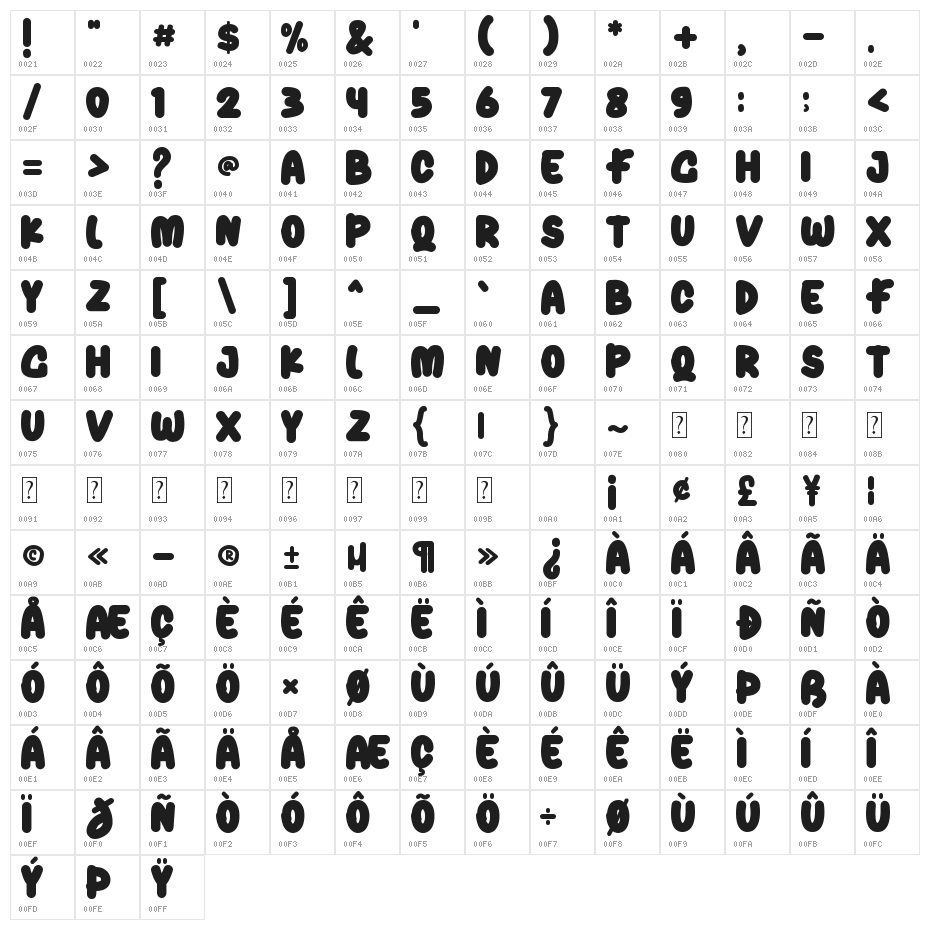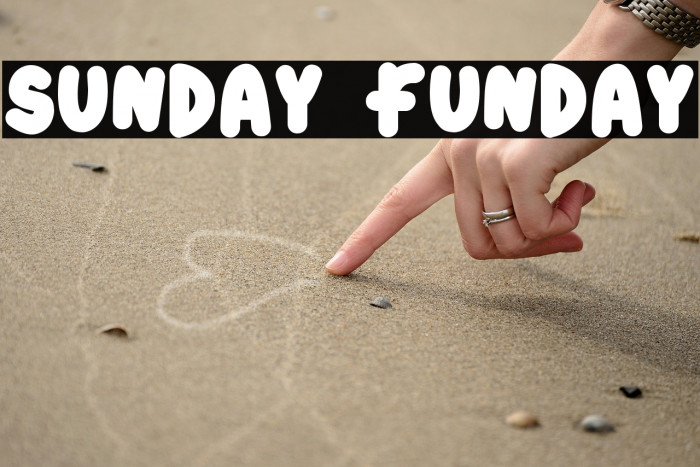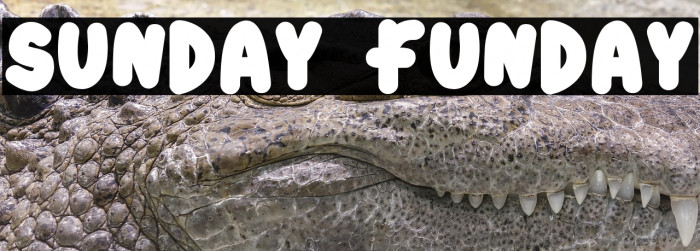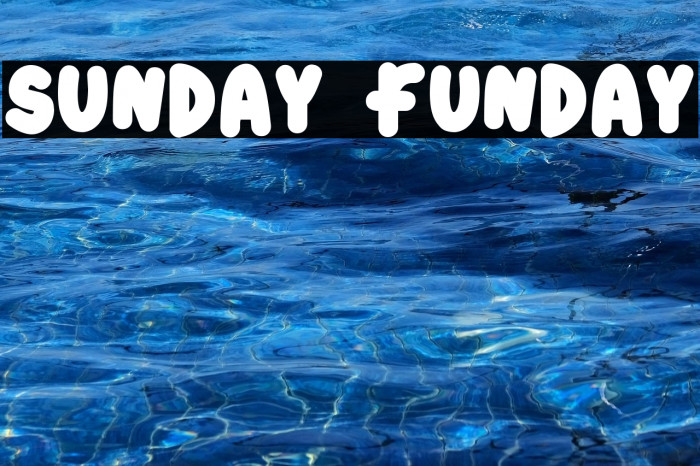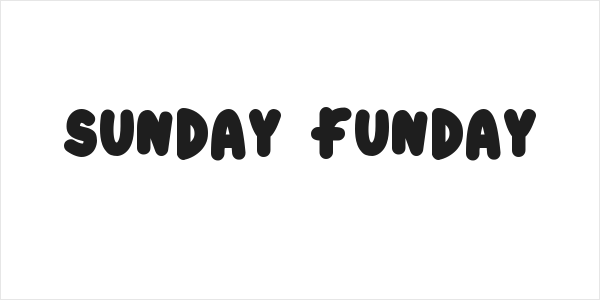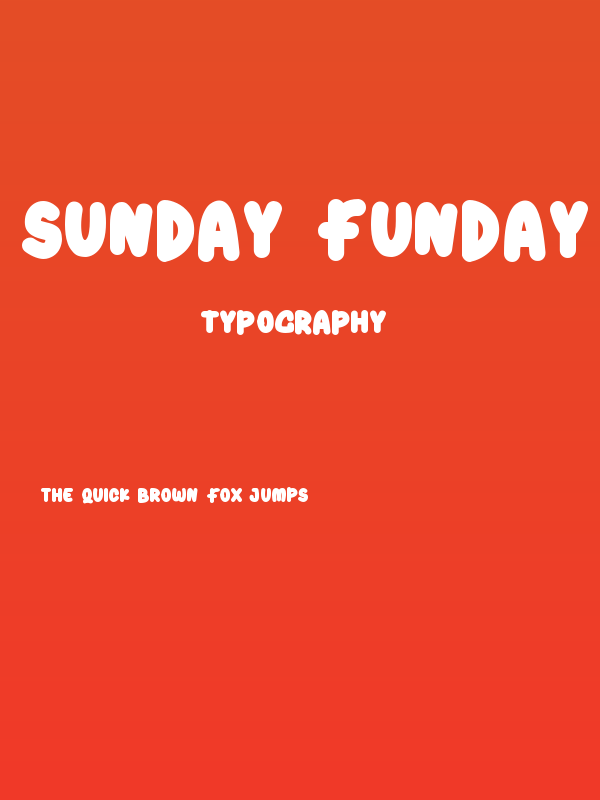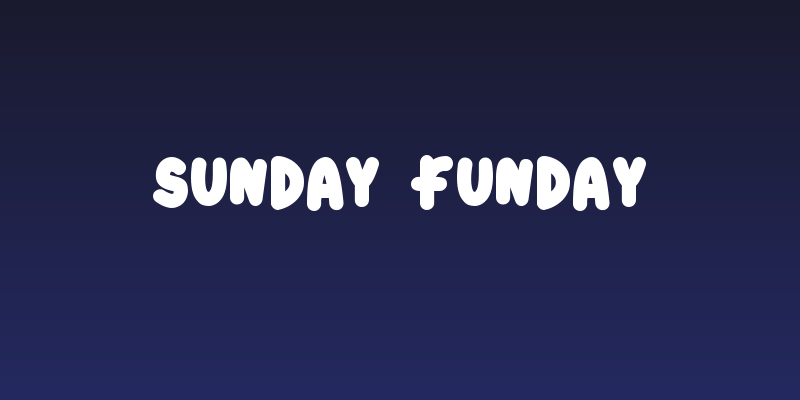
sunday funday Font
sunday funday Description
This playful and bold font features rounded, bubbly characters that exude a sense of fun and whimsy. The letters are thick and uniform, with a consistent stroke width that gives them a solid, substantial appearance. The overall design is reminiscent of playful, cartoon-like lettering, making it ideal for projects that require a lighthearted and informal touch. The font includes both uppercase and lowercase letters, as well as numbers and a variety of special characters, ensuring versatility in its application. Its boldness and unique style make it stand out, capturing attention with ease.
| Overall Style | Playful, Fun, Cartoon-like |
| Proposed Projects | Perfect for children's books, party invitations, playful branding, and eye-catching posters. |